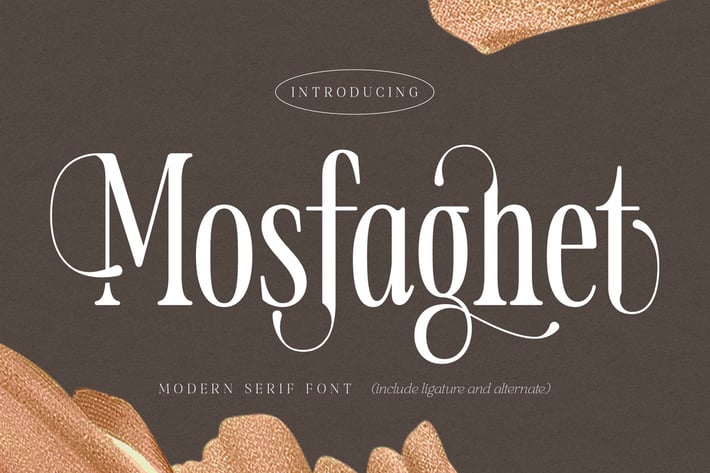
Mosfaghet Modern Serif Font
Mosfaghet is a modern serif font that blends elegance with soft decorative details, creating a refined yet contemporary vibe. Its graceful curves and stylish ligatures give your typography a luxurious feel without losing readability or balance.
Modern serif style with elegant curves
Includes ligatures & alternates for stylish compositions
Sophisticated, feminine, and premium character
Clean readability with decorative flair
Perfect mix of classic beauty and modern taste
Luxury branding & logo design
Editorial layouts & magazine headlines
Beauty, fashion & lifestyle projects
Wedding invitations & stationery
High-end social media graphics
Soft, stylish, and confidently elegant — Mosfaghet makes modern serif typography feel effortlessly premium.*